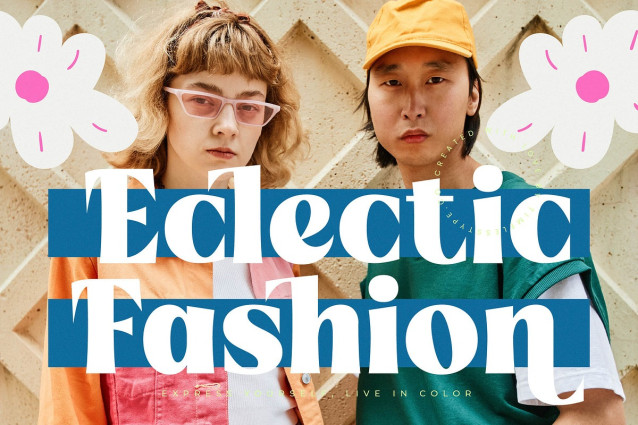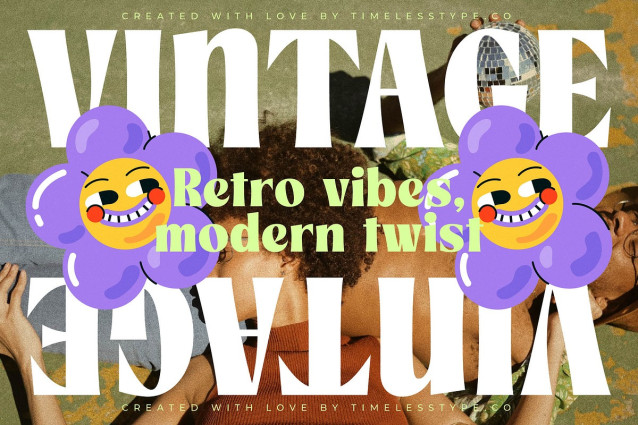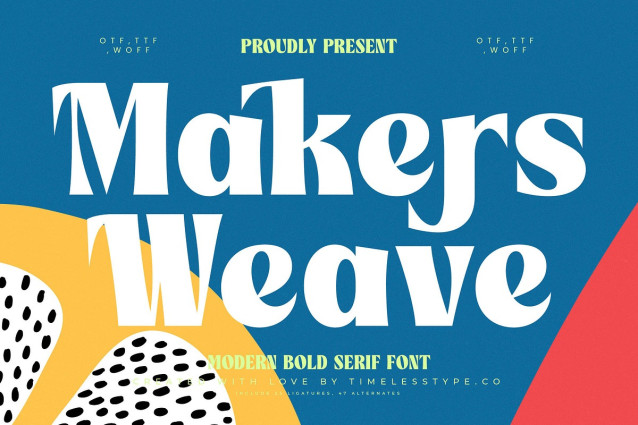
Makers Weave Font is more than just a typeface; it is a rhythmic dance of form and function that brings a soulful, handcrafted energy to your digital canvas. This font captures the essence of sophisticated artistry, blending bold structures with graceful curves to create a visual experience that feels both timeless and avant-garde.
Drawing inspiration from the intricate patterns of artisanal weaving and the fluid lines of mid-century modernism, this typeface evokes a sense of curated luxury. It reflects the atmosphere of high-end boutiques and contemporary art galleries, where every detail is deliberate and every stroke tells a story of creative excellence.
Boasting a powerful presence, this modern serif display is designed for maximum branding impact, offering a high-contrast serif look that is impossible to ignore. It serves as a premier choice for luxury typography and editorial font applications, providing a balance of weight and delicacy that commands attention on every page.
Staying ahead of the modern serif trend, this typeface aligns perfectly with the current shift towards character-driven typography and expressive editorial display fonts. It satisfies the growing market demand for type that breaks away from the mundane, offering designers a tool to create truly unique and memorable visual identities.
From high-fashion logo design to sophisticated editorial layouts, its versatility shines across diverse projects such as premium packaging, bespoke wedding invitations, and luxury branding. It is the perfect companion for fashion magazines and lifestyle brands looking to elevate their visual storytelling with a touch of modern elegance.
This comprehensive font package includes a rich set of ligatures and creative alternates that allow for endless customization and unique character pairings. With full multilingual support and a wide range of international characters, it ensures your message resonates across global borders while maintaining its distinct aesthetic charm.